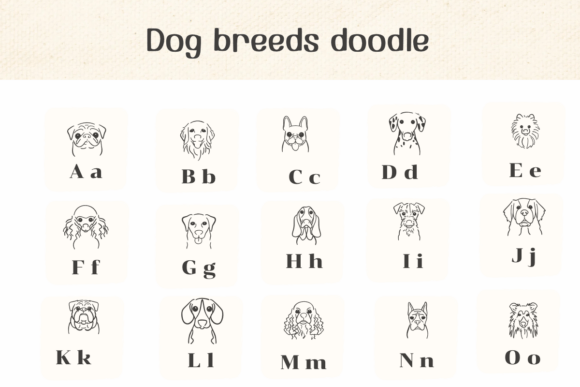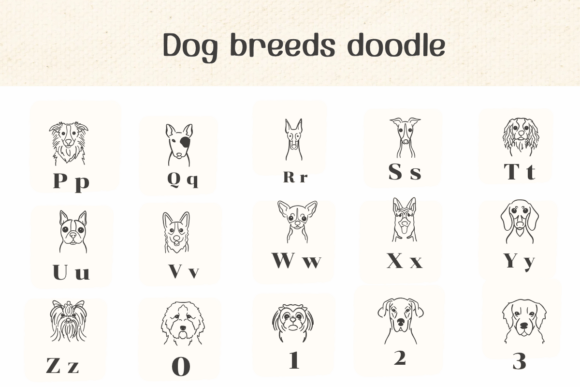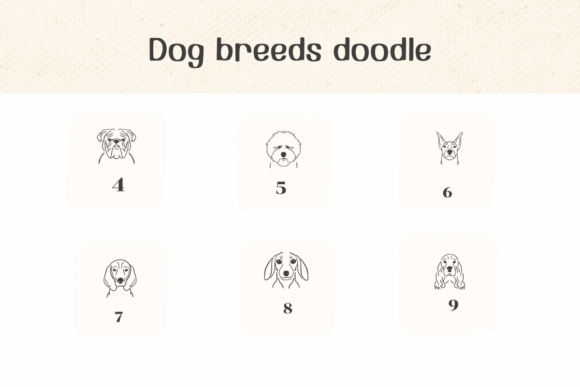
Dog Breeds Doodle Font
About the Dog Breeds Doodle Font
Explore the possibilities with Dog Breeds Doodle Font, a font that offers both beauty and functionality. Dog breeds doodle is a dingbats font. This font can enhance your creative projects such as wedding invitations, DIY, crafts, decorations, logos, and many other creative ideas.
Its playful, hand-drawn style makes it ideal for branding projects targeting a youthful or whimsical audience, particularly in applications like logos, icons, and short headlines on packaging or social media graphics. It works well for invitations and craft-related designs where a lighthearted and informal feel is desired. However, avoid using it for body text or lengthy paragraphs; its informal nature and inconsistent letterforms compromise readability in larger blocks of text. Furthermore, it’s not suitable for applications demanding high legibility, such as UI design or wayfinding.
Pairing Dog Breeds Doodle with a clean sans-serif like Open Sans for body copy provides excellent contrast and readability. For a more sophisticated look, consider pairing it with a delicate serif such as Lora, which balances the doodle’s informality with a touch of elegance. Alternatively, a geometric sans-serif like Montserrat can create a modern and playful combination.
The font’s overall personality is undeniably friendly and approachable, conveying a sense of charm and handcrafted quality. This makes it particularly suitable for brands and projects associated with pets, children’s products, or handmade goods.
Dog Breeds Doodle Font Usage Examples
Dog Breeds Doodle Font Example